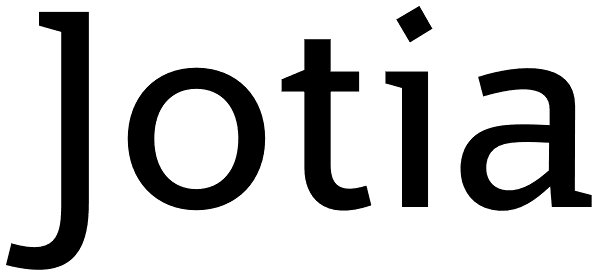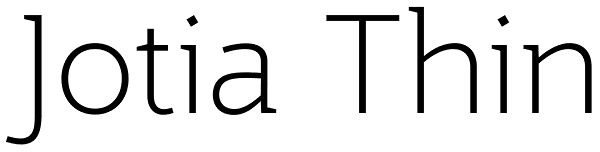
Jotia
Creating a combination between serif and sans serif typefaces, Jotia utilises the best of both worlds, resulting in a unique and modern neo-humanist font family. Taking its inspiration from lapidary inscriptions rather than pen drawn text, Jotia...